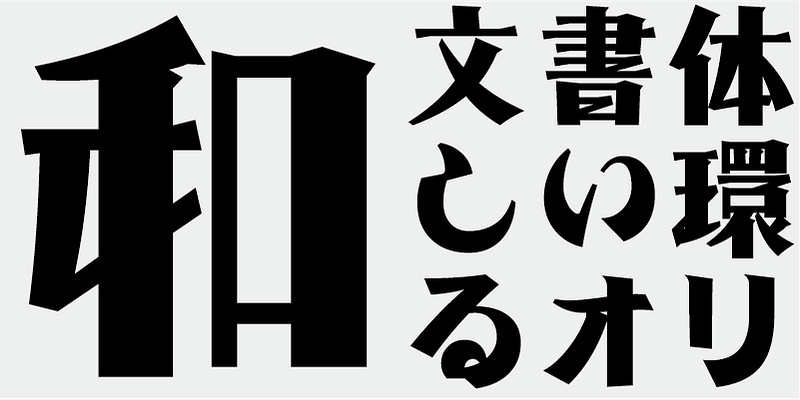
AB Suruga U Font Free Download is a stylish and versatile serif typeface that combines contemporary design with a touch of traditional elegance. Its refined serifs and balanced letterforms make it perfect for high-end branding, editorial layouts, invitations, luxury packaging, and any project that requires sophistication and readability.